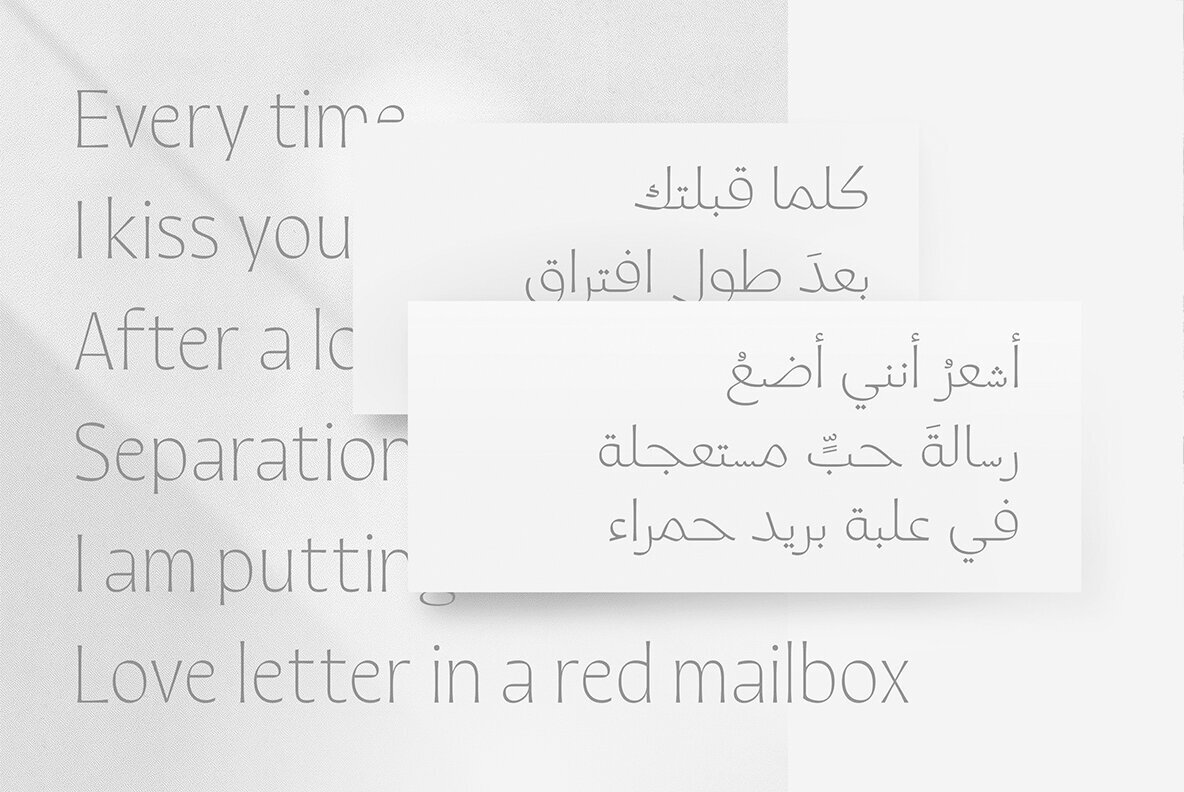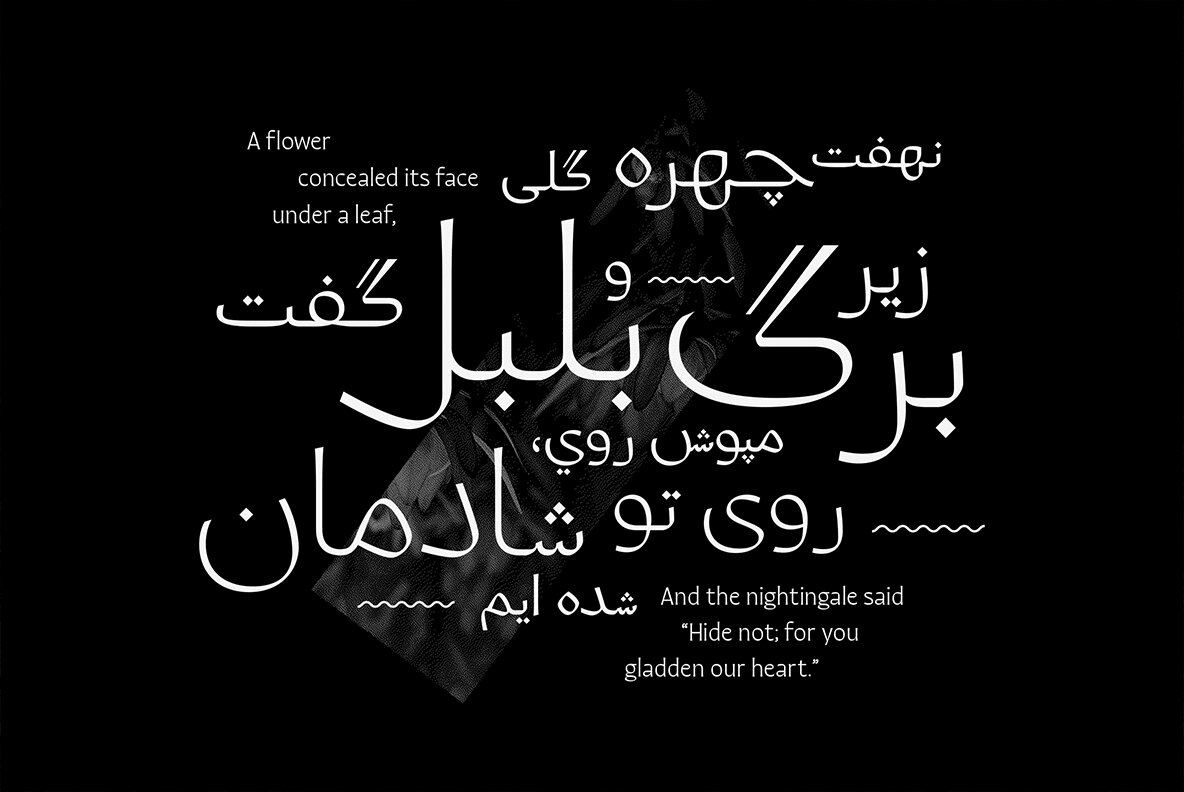
Quiverleaf Arabic CF Font
Quiverleaf Arabic CF is a font that was created with the intention of covering both Latin and Arabic scripts (based on the original Quiverleaf CF). There are five weights - from delicately light to extra bold- which combine together in one visually unified family, making it easy for designers who work across multiple languages or script types.